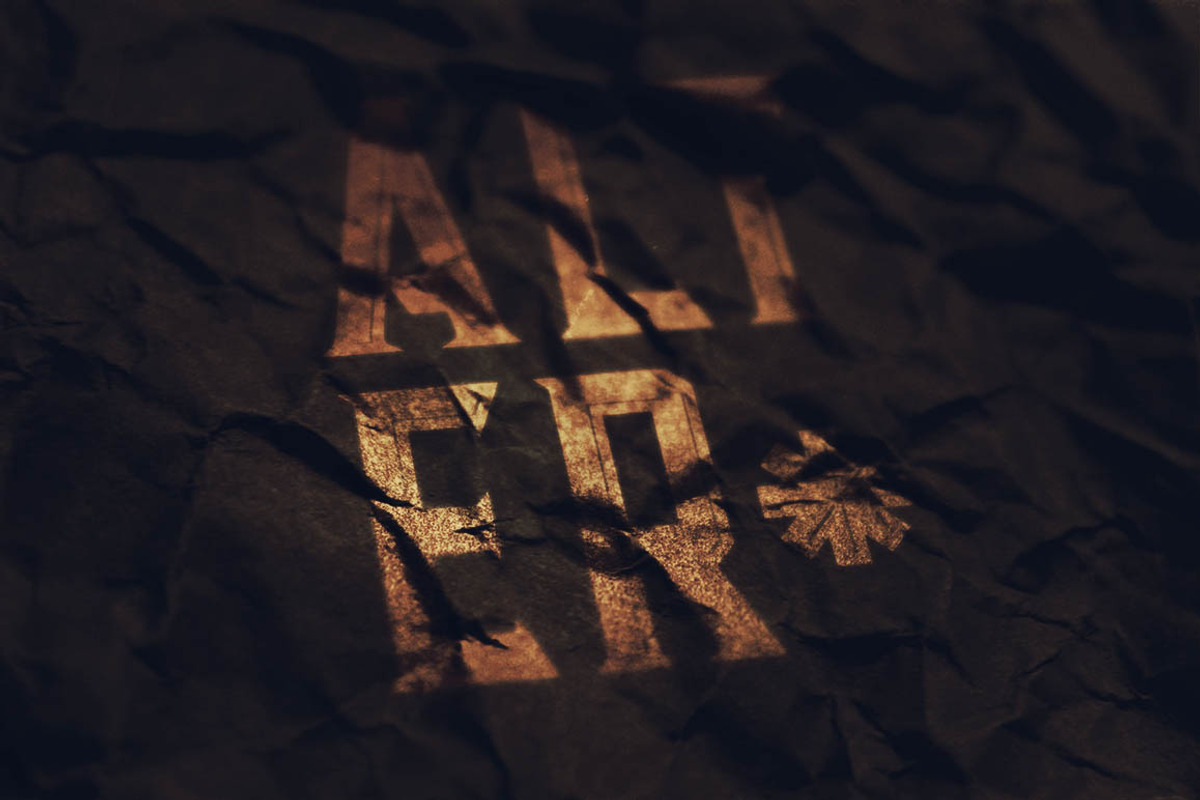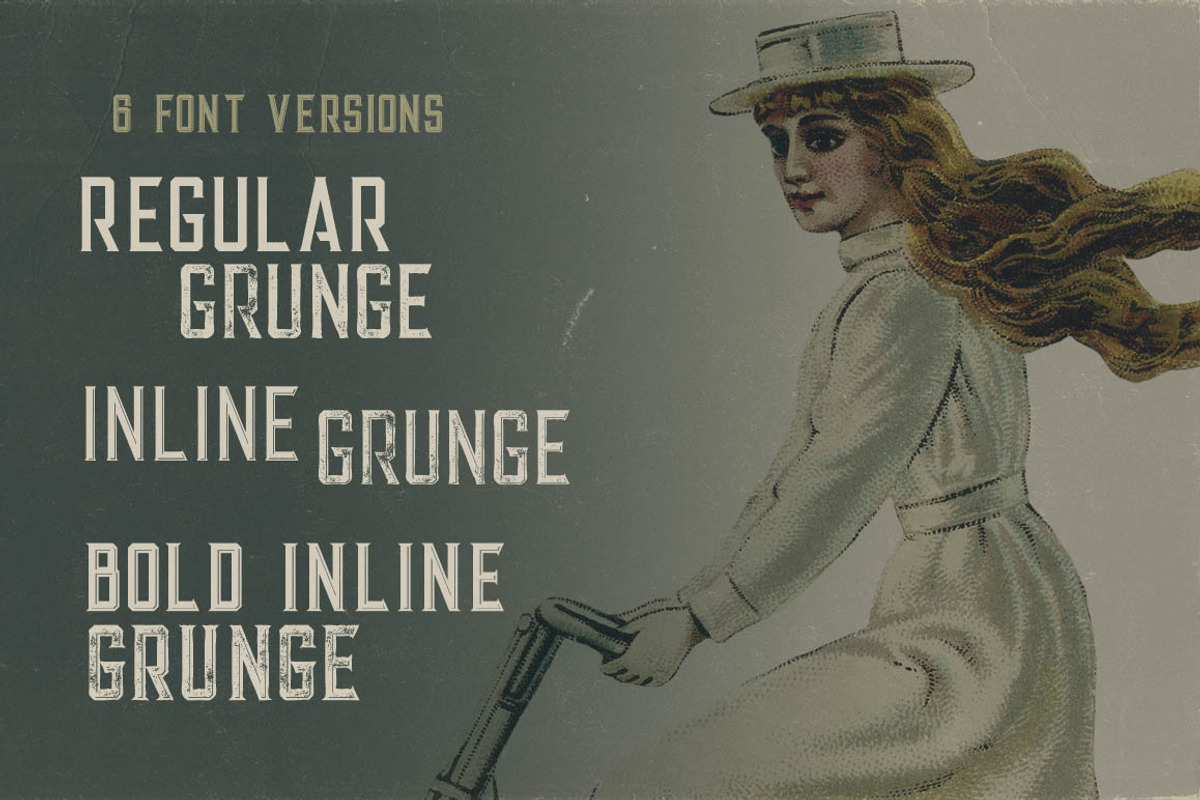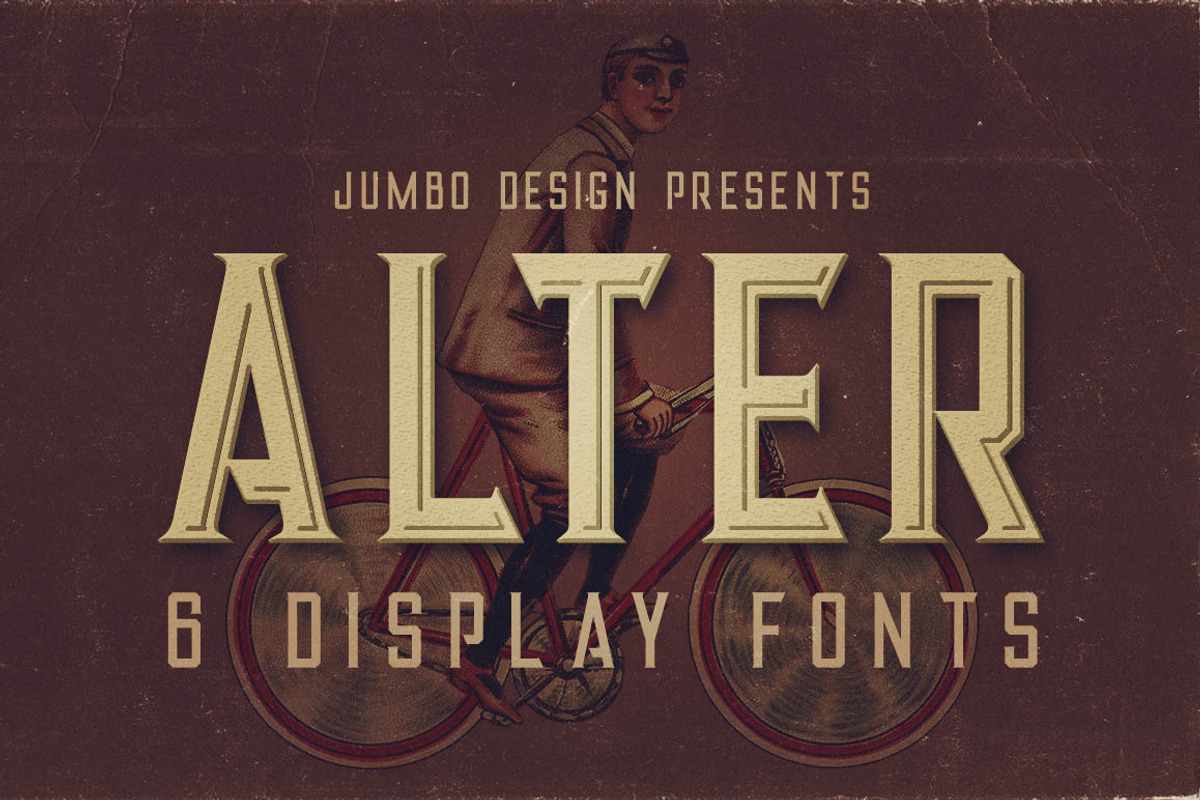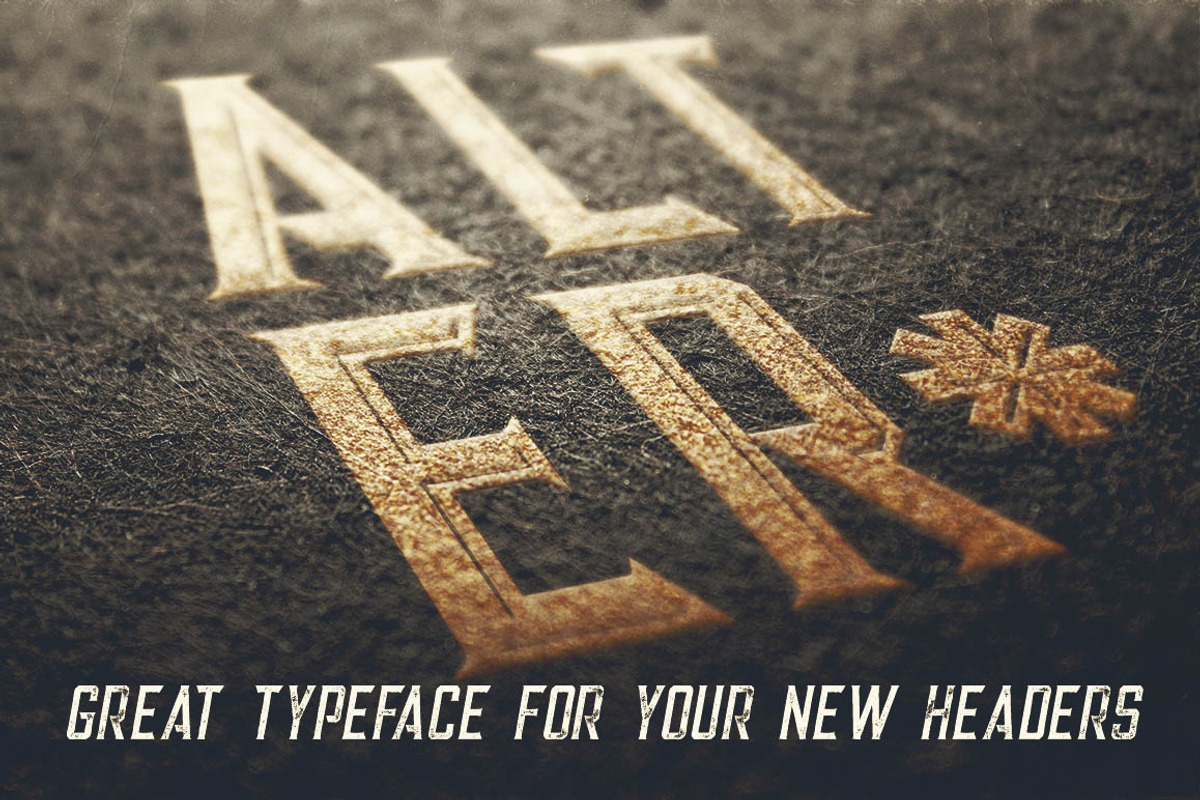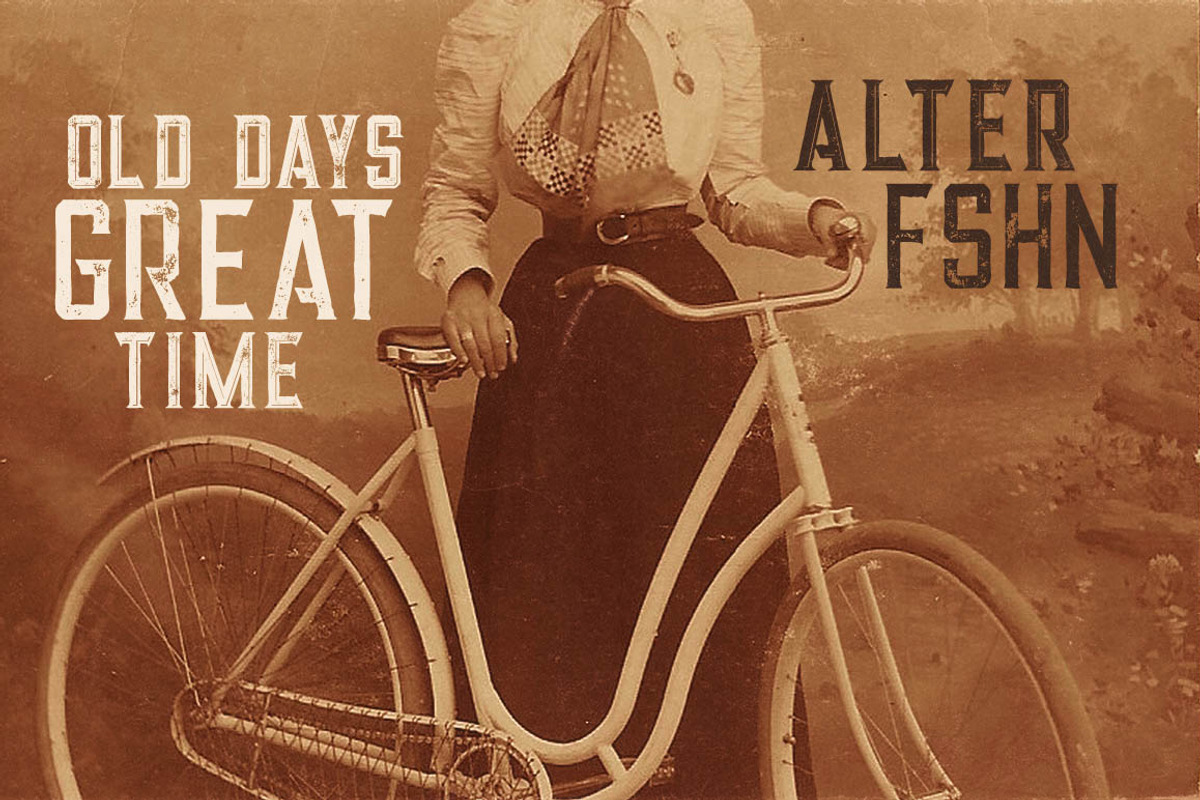
Alter - Vintage Style Font
Alter - Vintage Style Font by JumboDesign is a font selected for branding, posters, packaging, typography.
Why Alter - Vintage Style Font is worth a look
Alter - Vintage Style Font by JumboDesign fits naturally into Branding, posters, packaging, typography.